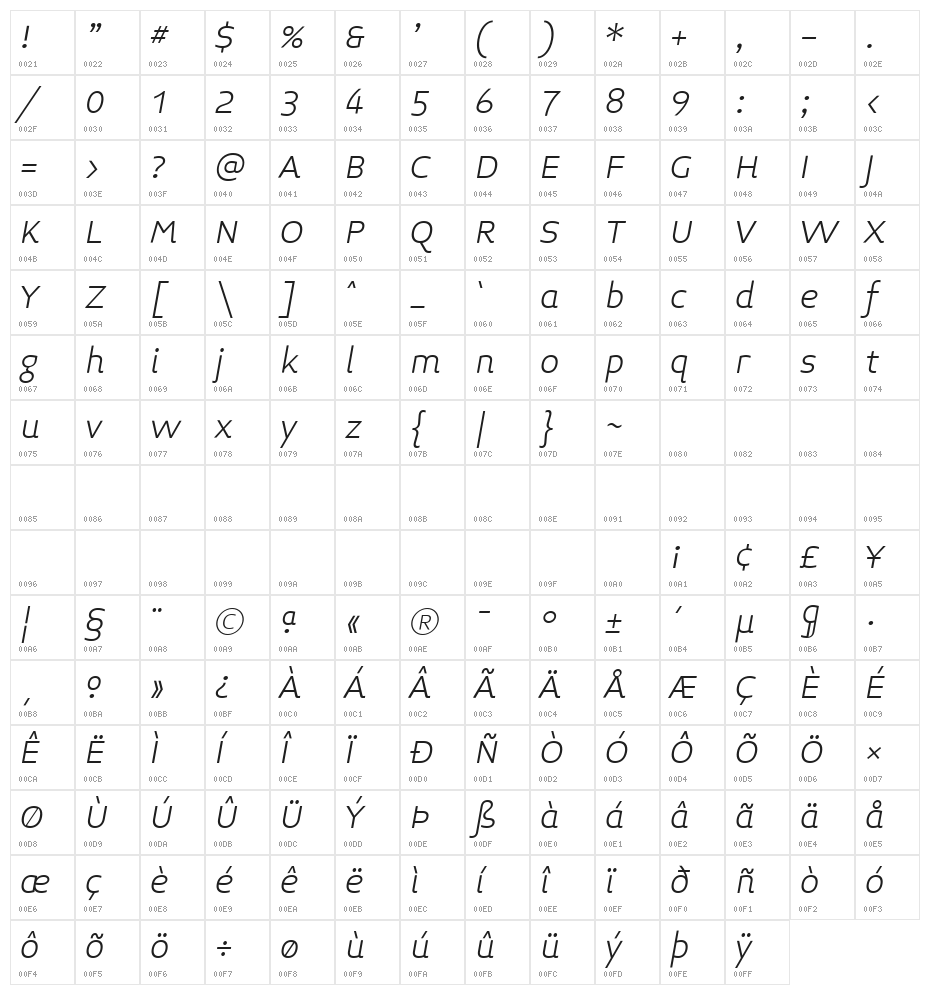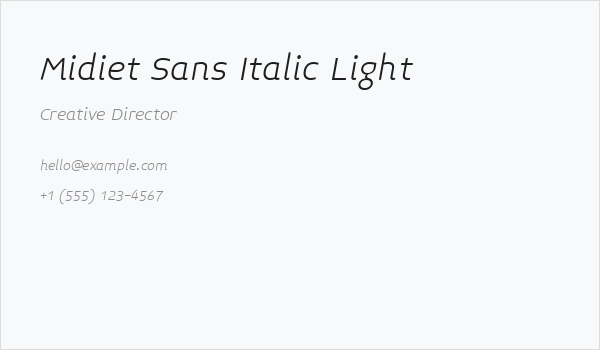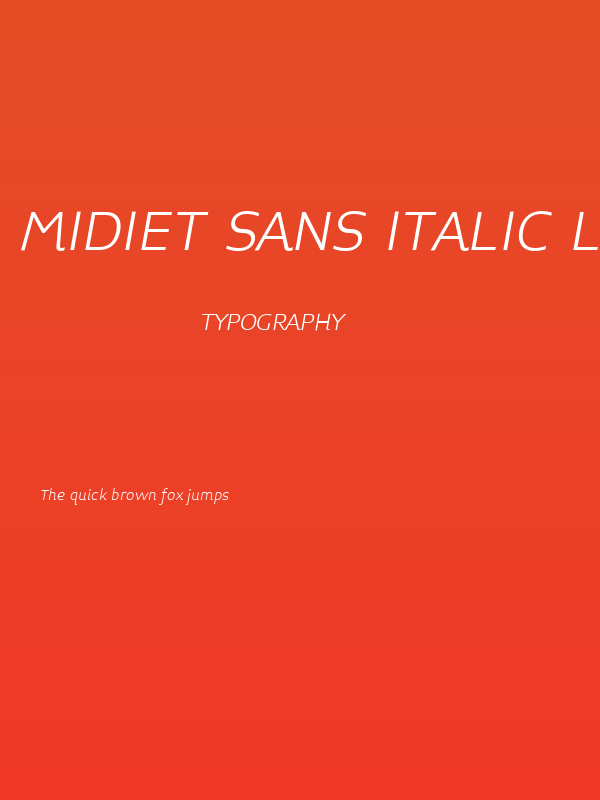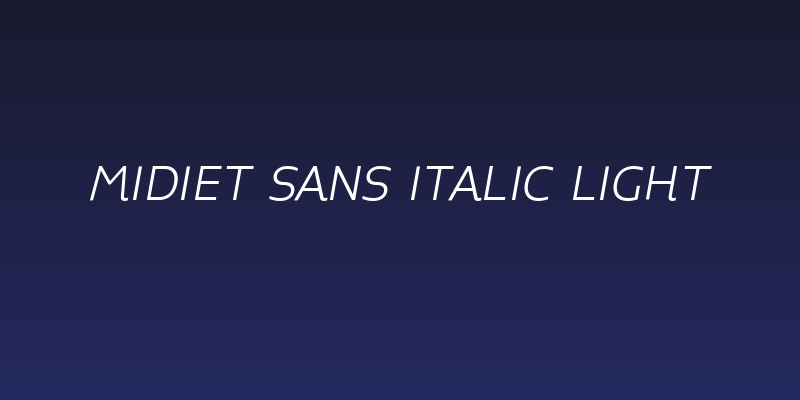
Midiet Sans Italic Light Font
Midiet Sans Italic Light Description
This font features a sleek and modern sans-serif design with a distinct italic style. The characters are elegantly slanted, providing a sense of motion and fluidity. The light weight of the strokes contributes to a clean and airy appearance, making it suitable for contemporary design projects. The font maintains a consistent and harmonious character spacing, ensuring readability while adding a touch of sophistication. Its minimalist aesthetic is complemented by a medium contrast in stroke thickness, which enhances its legibility without compromising its stylish appeal.
Proposed ProjectsIdeal for branding, editorial design, websites, and modern advertising campaigns.